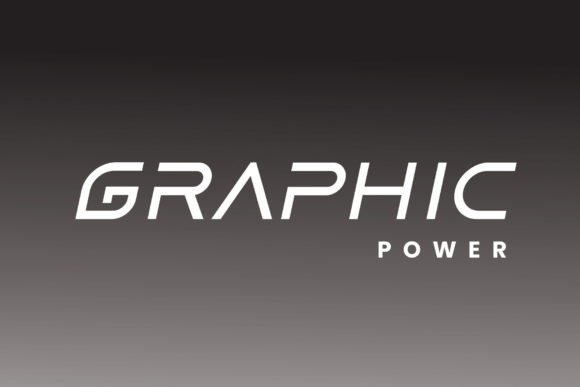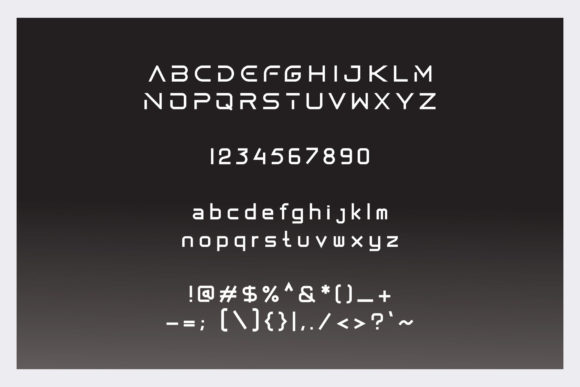
Introducing Gyande Font: The Ultimate Modern Display Font
Are you tired of using the same old fonts for your designs? Look no further than Gyande Font, a cool and modern display font that’s perfect for adding a unique touch to your web designs, business cards, and more. In this article, we’ll dive into the features and benefits of Gyande Font, and explore how it can elevate your design game.
What is Gyande Font?
Gyande Font is a modern display font designed to make a statement. Its sleek and contemporary style makes it ideal for use in a variety of design projects, from web designs and business cards to posters and flyers. With its unique and eye-catching lettering, Gyande Font is sure to grab attention and leave a lasting impression.
Key Features of Gyande Font
- Modern and sleek design: Gyande Font boasts a fresh and modern design that’s perfect for designers looking for a unique and stylish font.
- Highly legible: Despite its bold and edgy design, Gyande Font is highly legible, making it perfect for use in a variety of design projects.
- Versatile: Gyande Font can be used in a range of design projects, from web designs and business cards to posters and flyers.
- Easily customizable: Gyande Font is easily customizable, allowing designers to adjust the font to suit their specific design needs.
Benefits of Using Gyande Font
So why choose Gyande Font for your design projects? Here are just a few benefits of using this amazing font:
- Adds a unique touch: Gyande Font adds a unique and stylish touch to any design project, setting it apart from more traditional fonts.
- Grabs attention: With its bold and eye-catching design, Gyande Font is sure to grab attention and leave a lasting impression.
- Perfect for branding: Gyande Font is perfect for use in branding projects, such as logos and business cards, where a unique and memorable font is essential.
- Easy to use: Gyande Font is easy to use and can be easily integrated into a range of design projects.
Who is Gyande Font for?
Gyande Font is perfect for designers, crafters, and anyone looking to add a unique touch to their design projects. Whether you’re a professional designer or a DIY enthusiast, Gyande Font is a great choice for anyone looking for a modern and stylish font.
In conclusion, Gyande Font is a cool and modern display font that’s perfect for adding a unique touch to your design projects. With its sleek and contemporary design, highly legible lettering, and versatility, Gyande Font is a great choice for designers, crafters, and anyone looking to elevate their design game. So why not give Gyande Font a try and see the difference it can make in your designs?